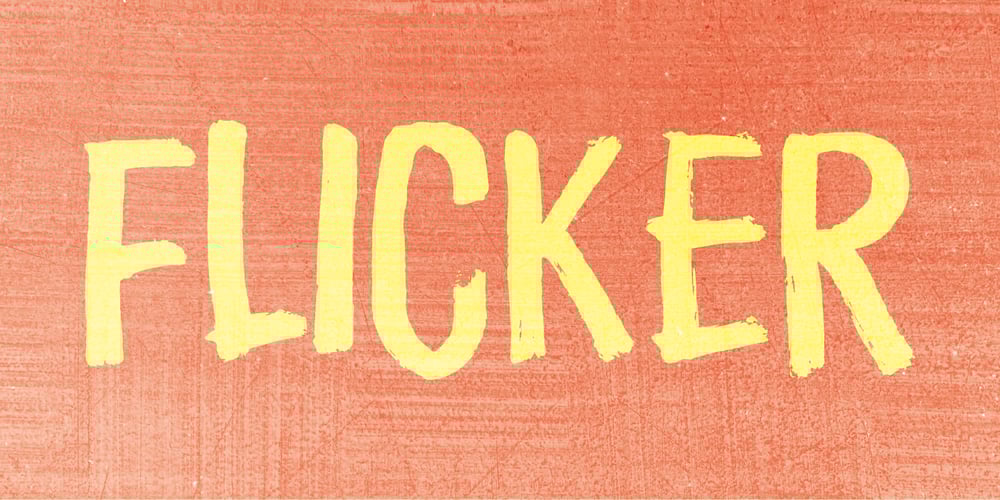
Flicker Font Family was designed by Jakob Fischer and published by PizzaDude.dk. Flicker contains 1 styles and family package options. Handpainted font with attitude! An attitude which will help you when designing posters, packaging, headline, invitations and alike, that needs that authentic brush-look! I haven’t got the count of how many pieces of paper I used to make this font. It was a lot! Comes with “contextual alternates” which means that the font has 6 different version of each letter. These different versions cycle as you type, and makes the font look more realistic!